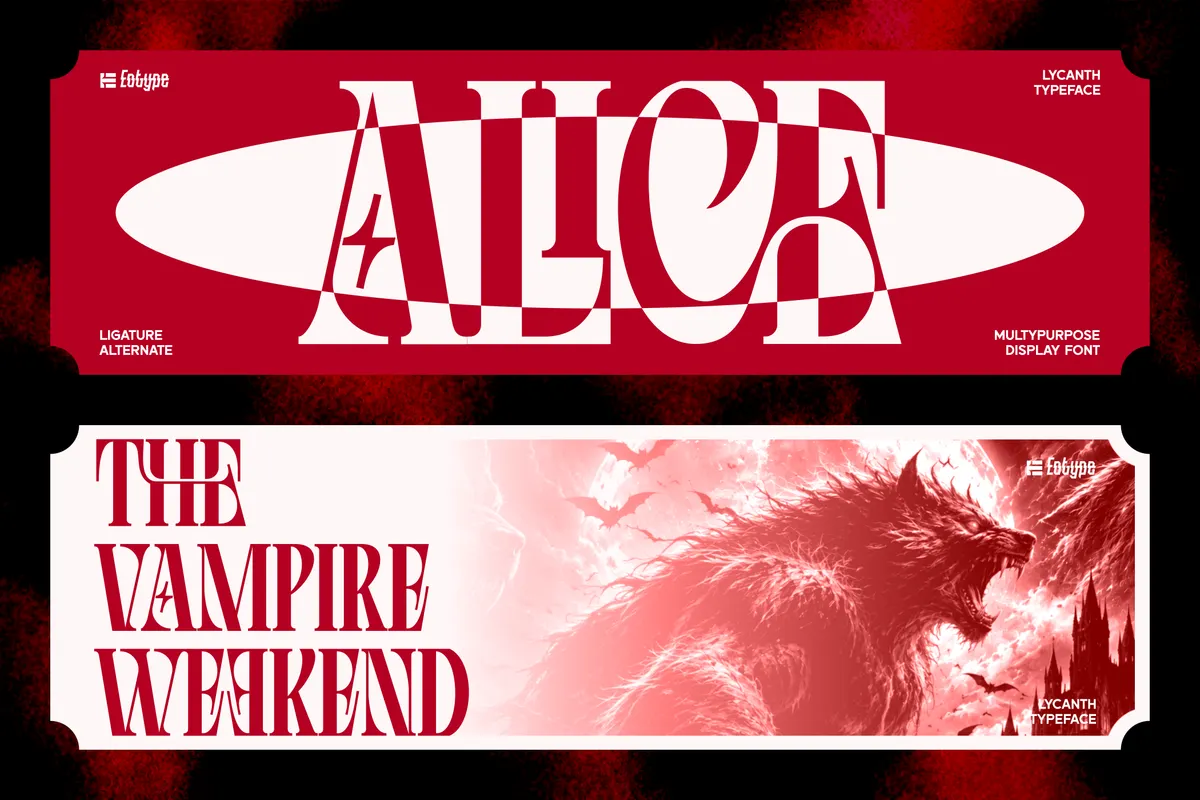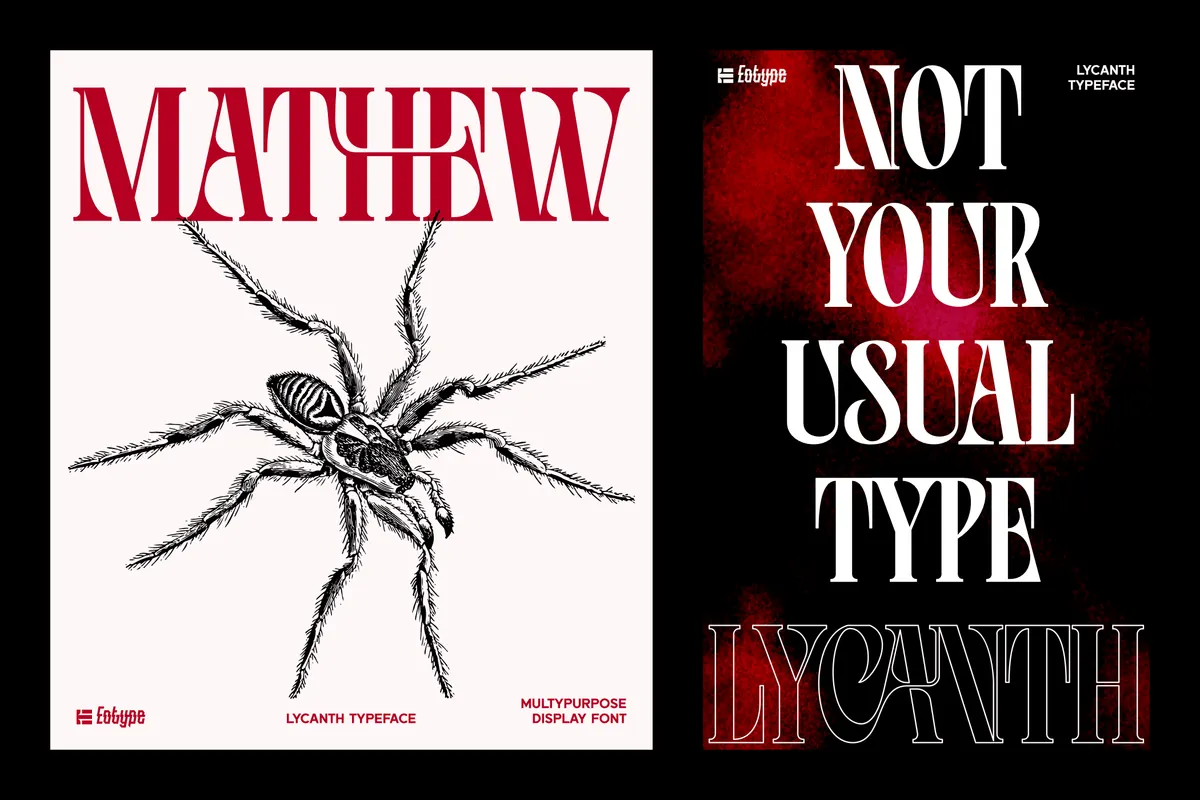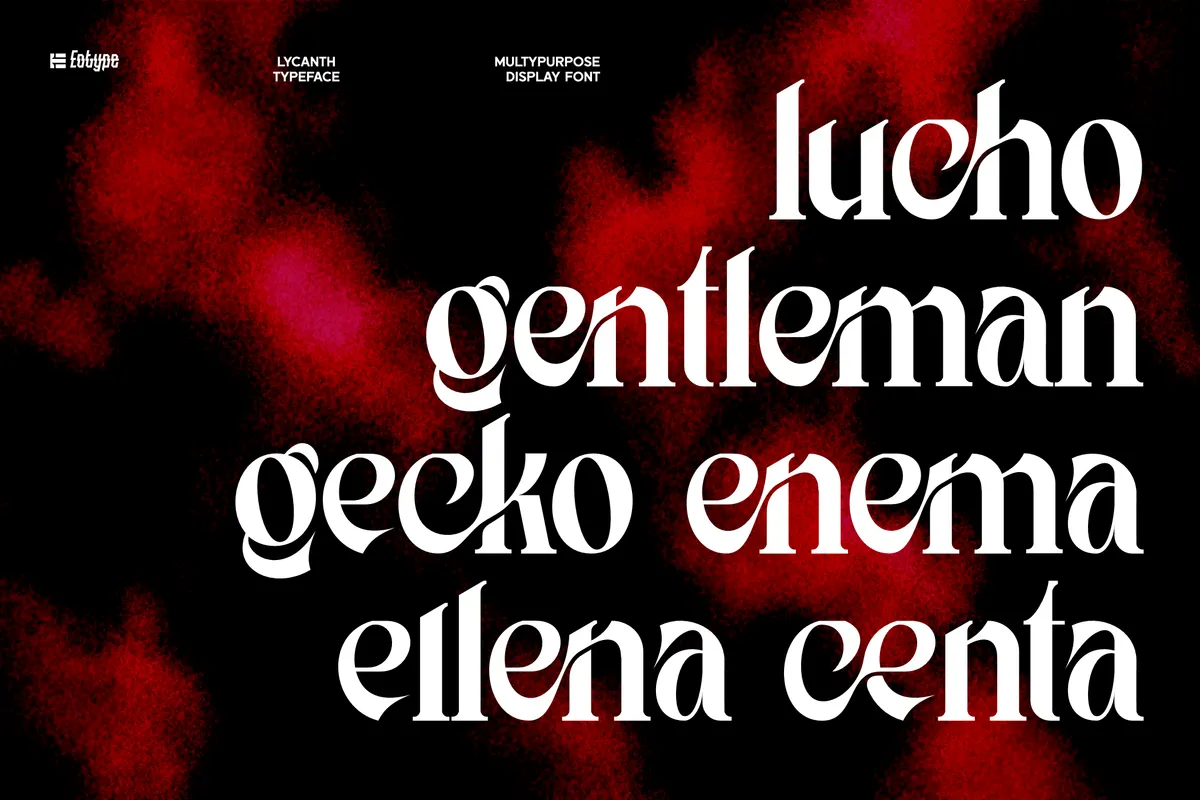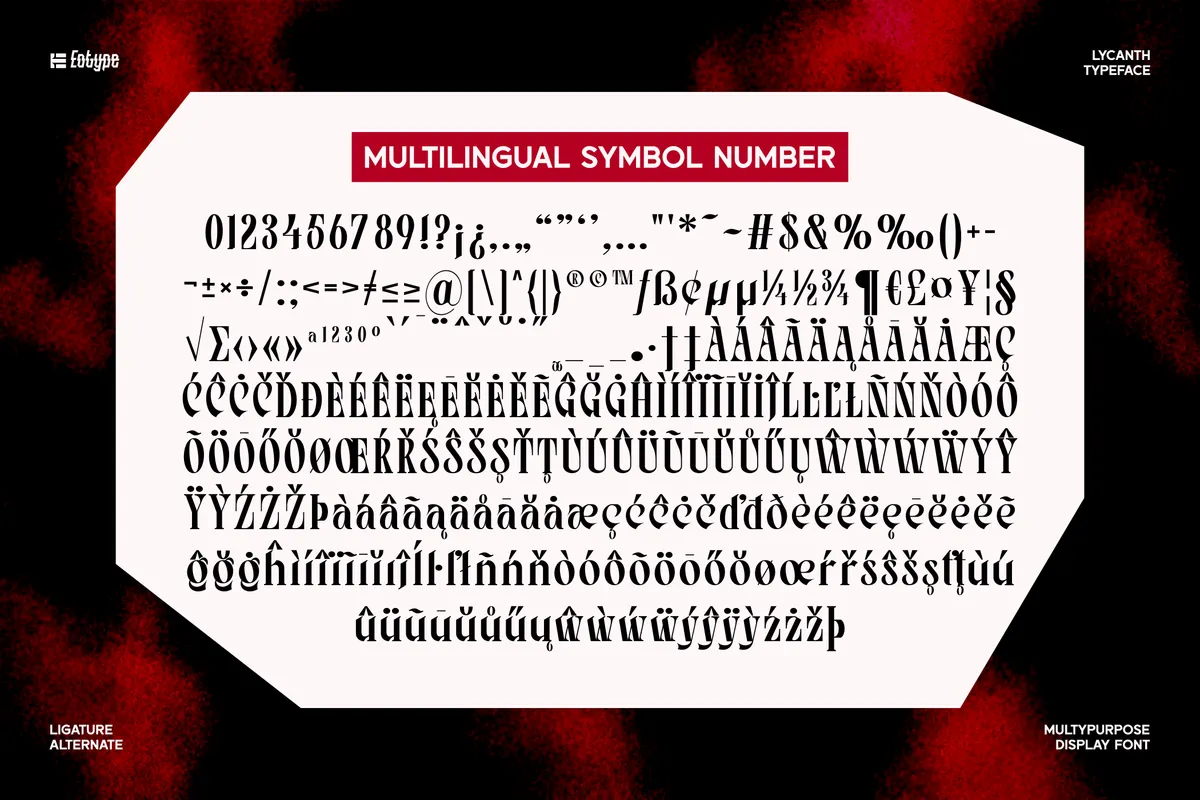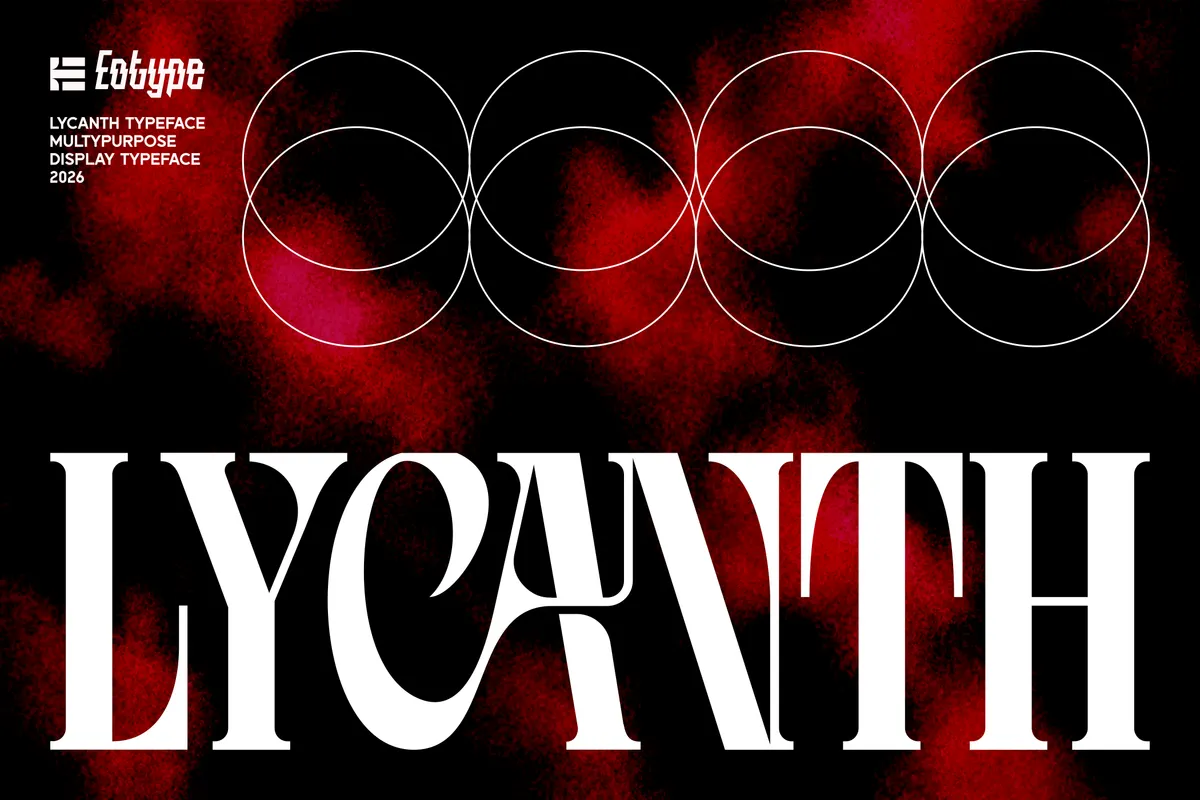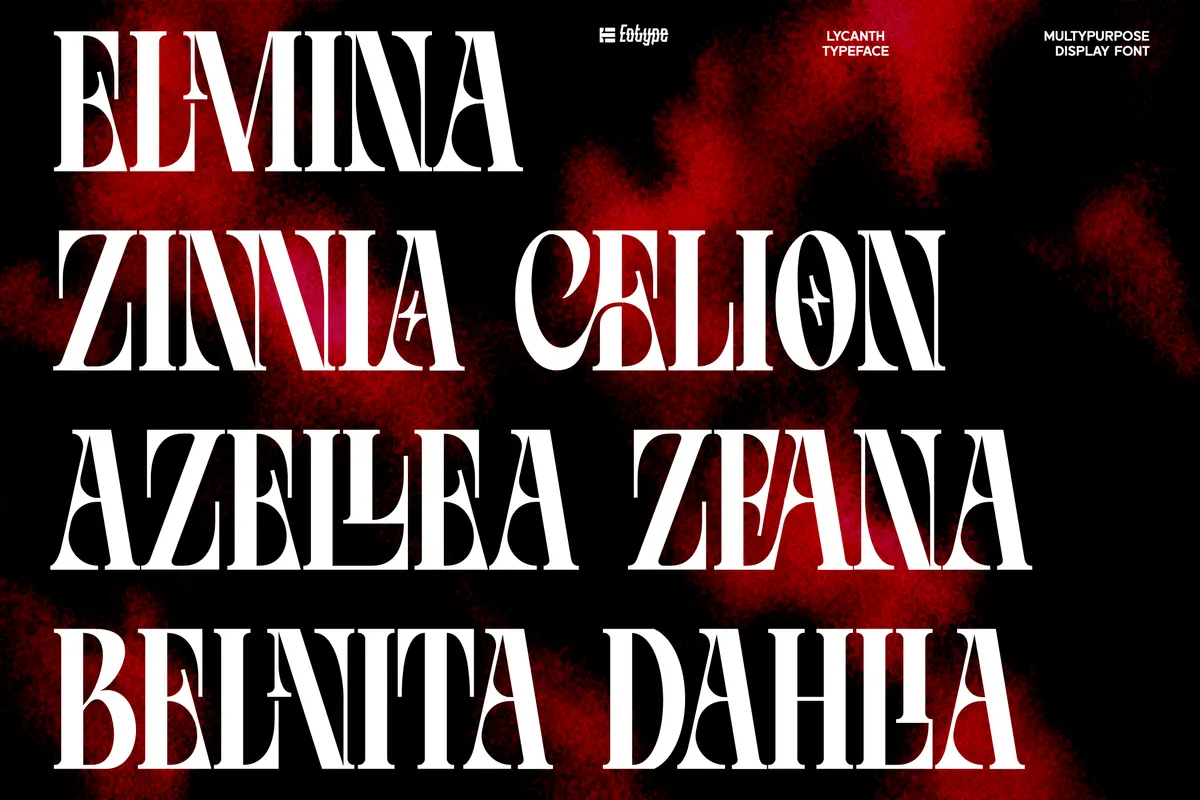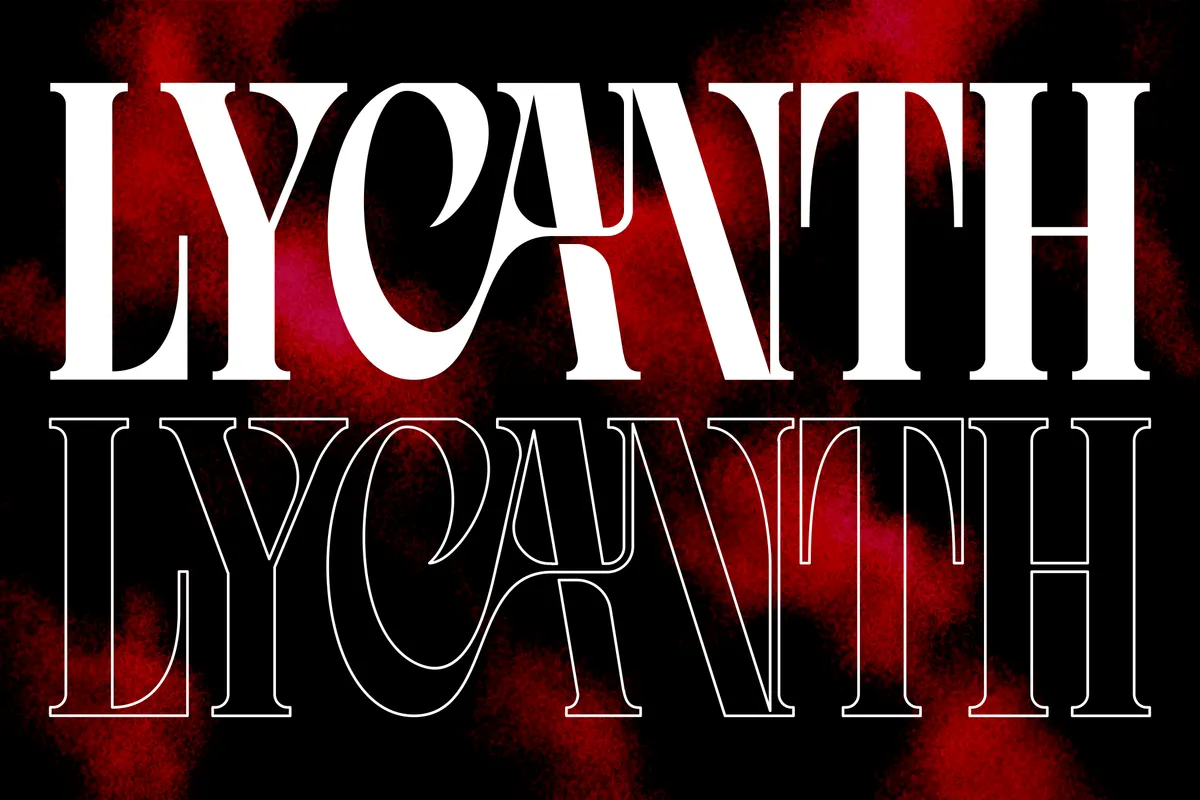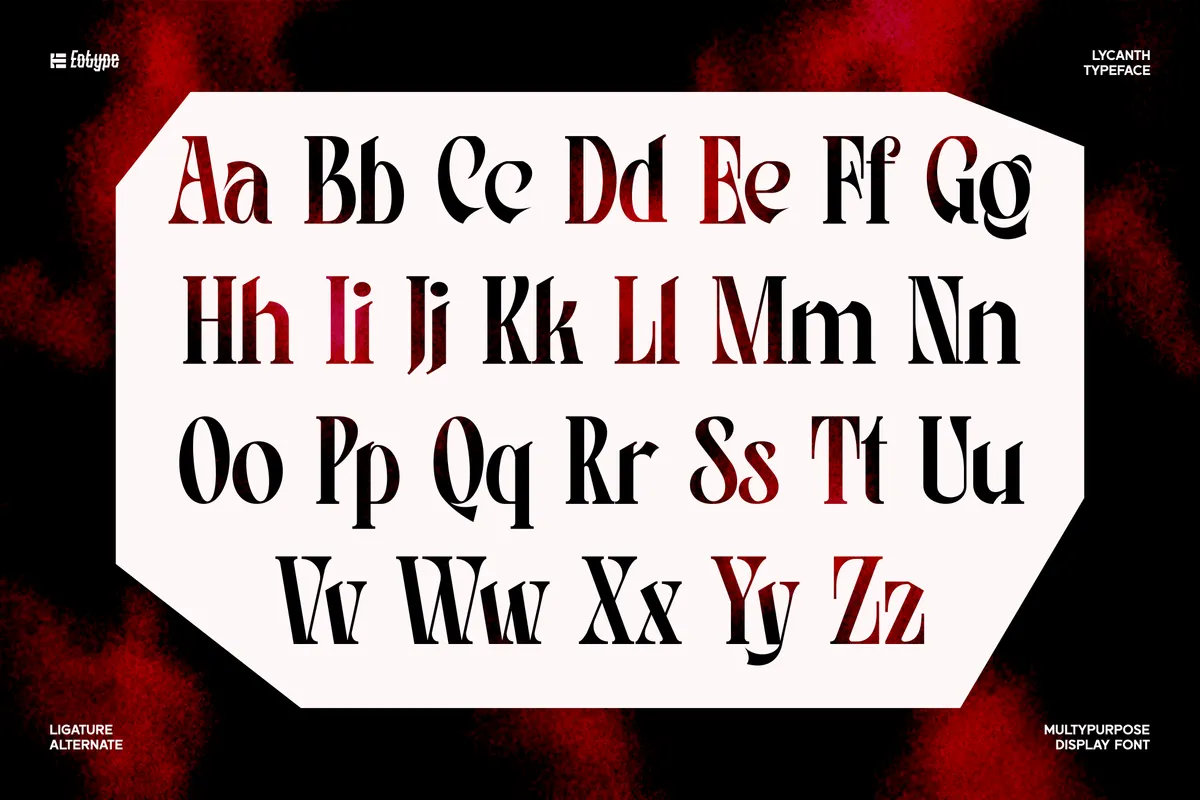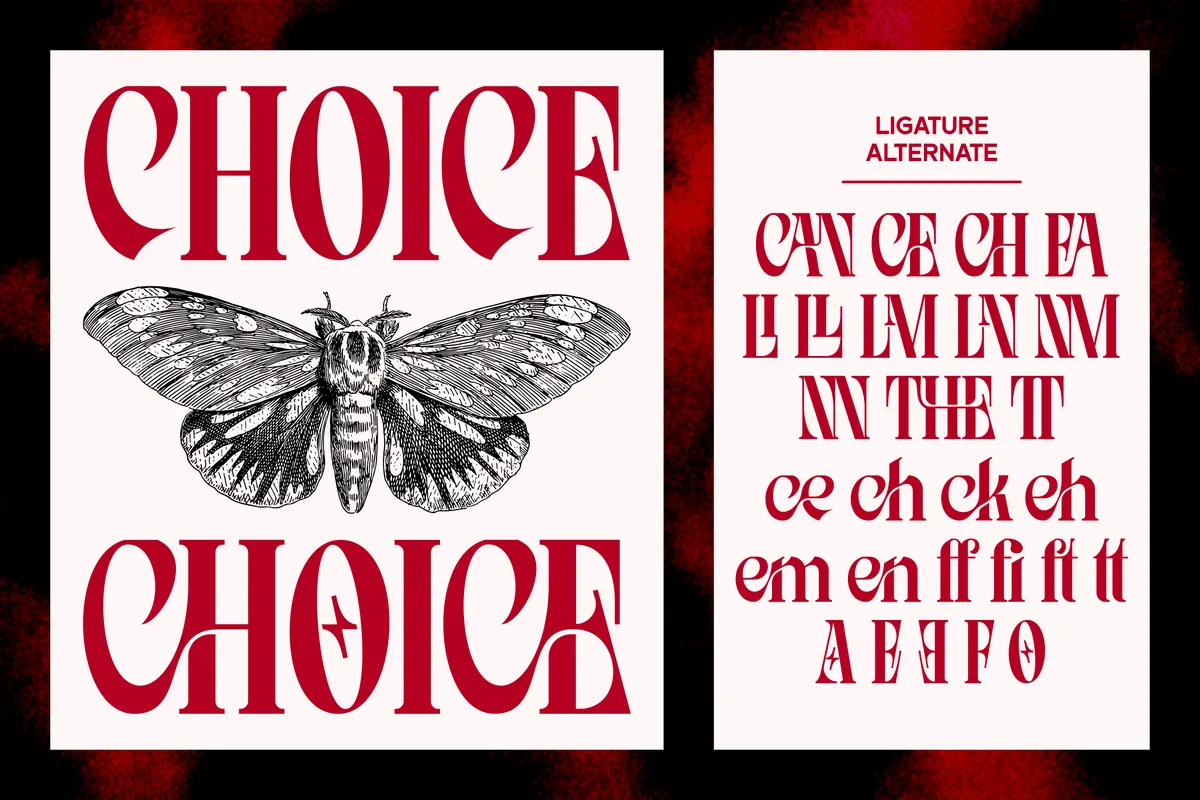
Lycanth - Dramatic Serif Display Font
Lycanth
Lycanth pushes high-contrast serif construction into unconventional territory, with blade-like serifs and a handful of ligated letter pairs that fuse into single connected shapes. Twenty-three discretionary ligatures connect pairs like CH, TH, LL, and NN, with matching lowercase versions for ch, ck, and ff. Alternate forms round out A, F, and O, plus two options for E, all reachable through the OpenType panel or by dropping in the glyph directly.
Use it for editorial headlines, fashion branding, posters, album artwork, and packaging that wants a dramatic, gothic edge.
- Uppercase & lowercase;
- Numerals, punctuation & symbols;
- 23 discretionary ligatures;
- Alternate forms for A, E, F, and O;